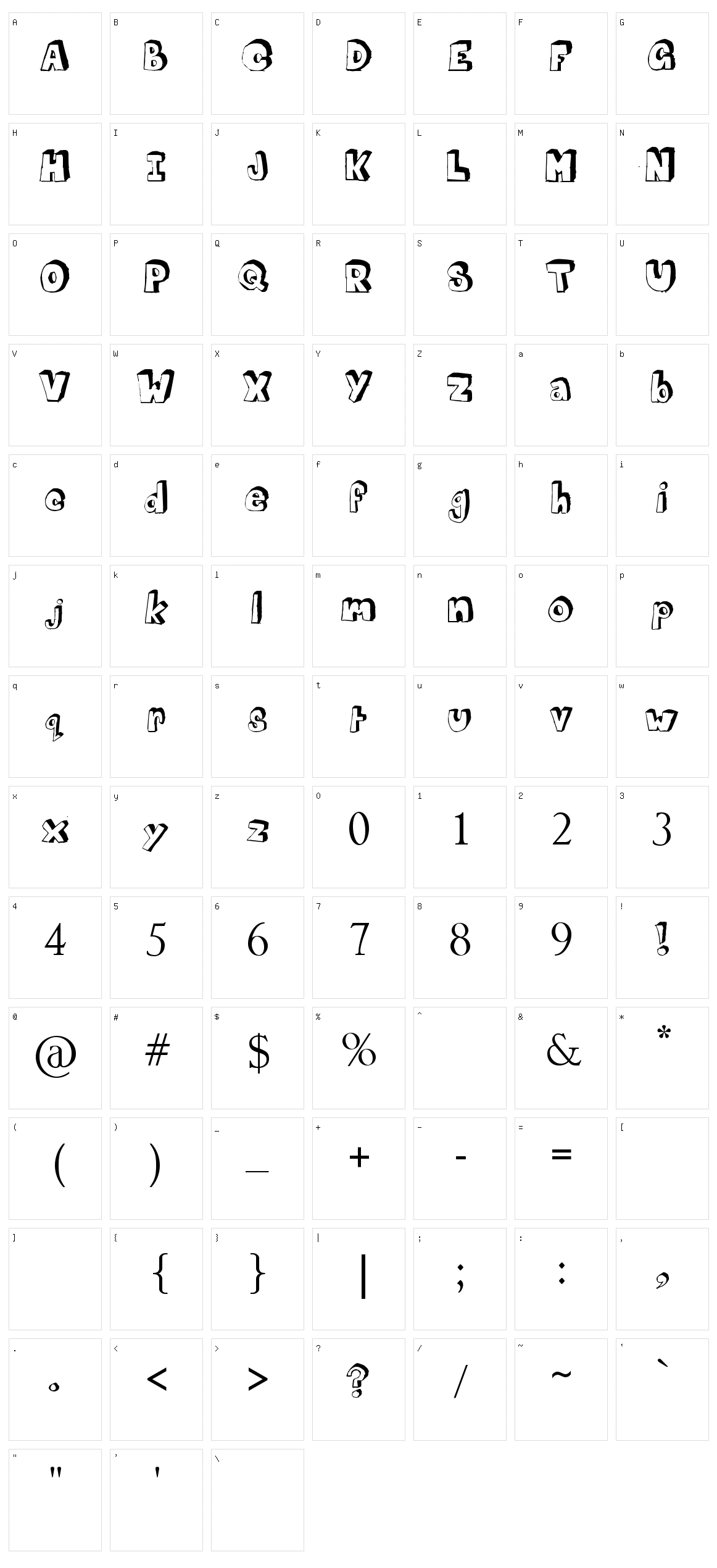
The free font Mathematics Boredom is carefully designed by Is School Really Necessary?, showcasing a thoughtful balance of creativity and usability and falls under the Cartoon font style. When you download the ZIP file, it contains only 23.48 KB of font files, making it lightweight and quick to download. Please review the license details below to understand permitted usage and distribution rights. If license information is not available, we recommend using this font for personal projects only or contacting the author directly for commercial usage permissions.